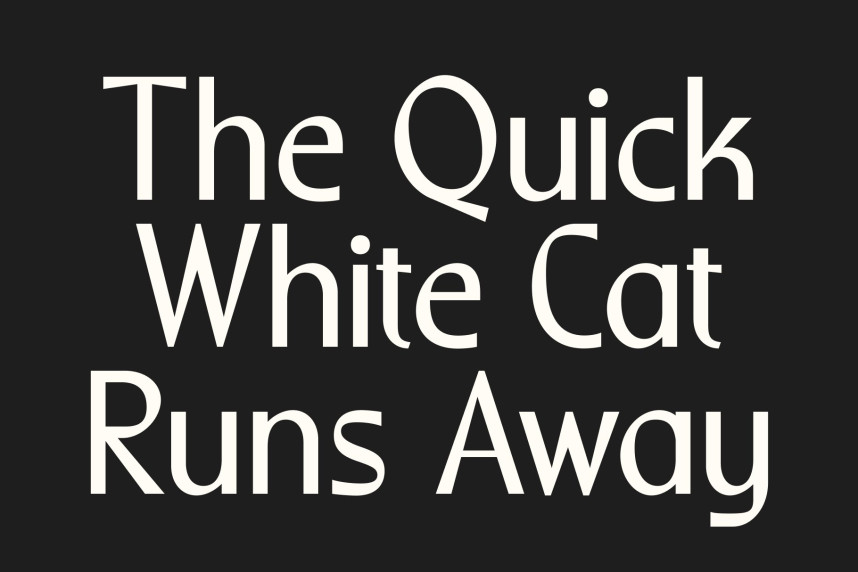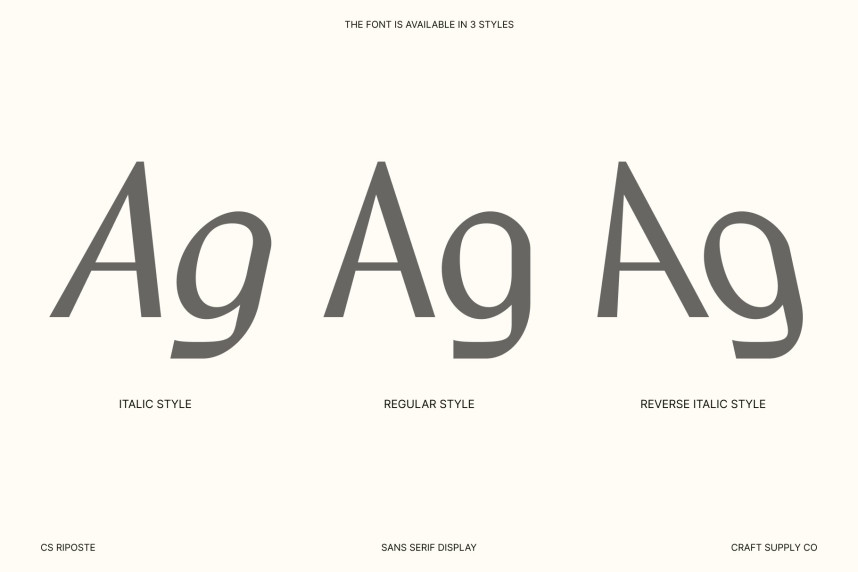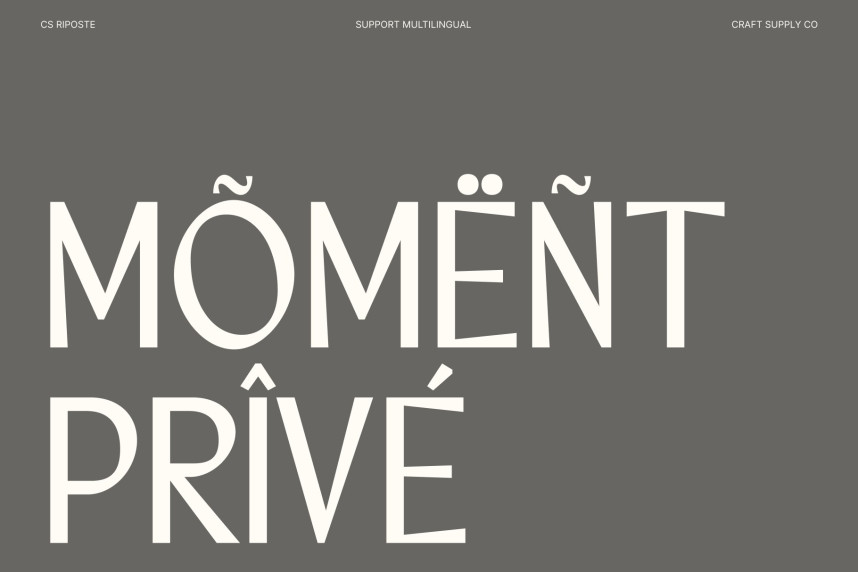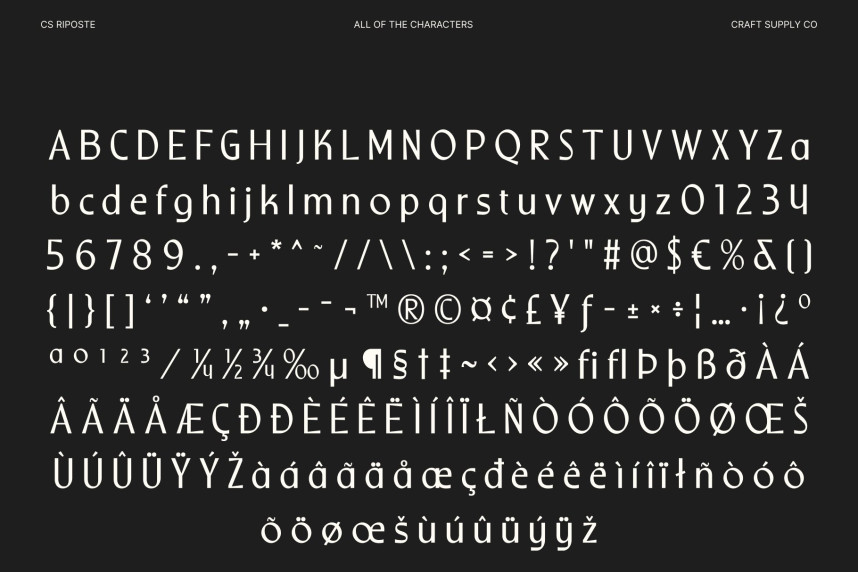
CS Riposte Typeface
CS Riposte Typeface – Fresh Modern Clarity with Stylish Confidence Modern Sans Serif Font with Clean Contemporary Design. This is a modern sans serif font crafted with a clean and fresh design approach. Its well-balanced structure and refined proportions create a professional appearance that feels polished without being stiff or overly formal. Designed to feel modern, aesthetic, and stylish, this font delivers clarity and confidence across a wide range of visual applications.